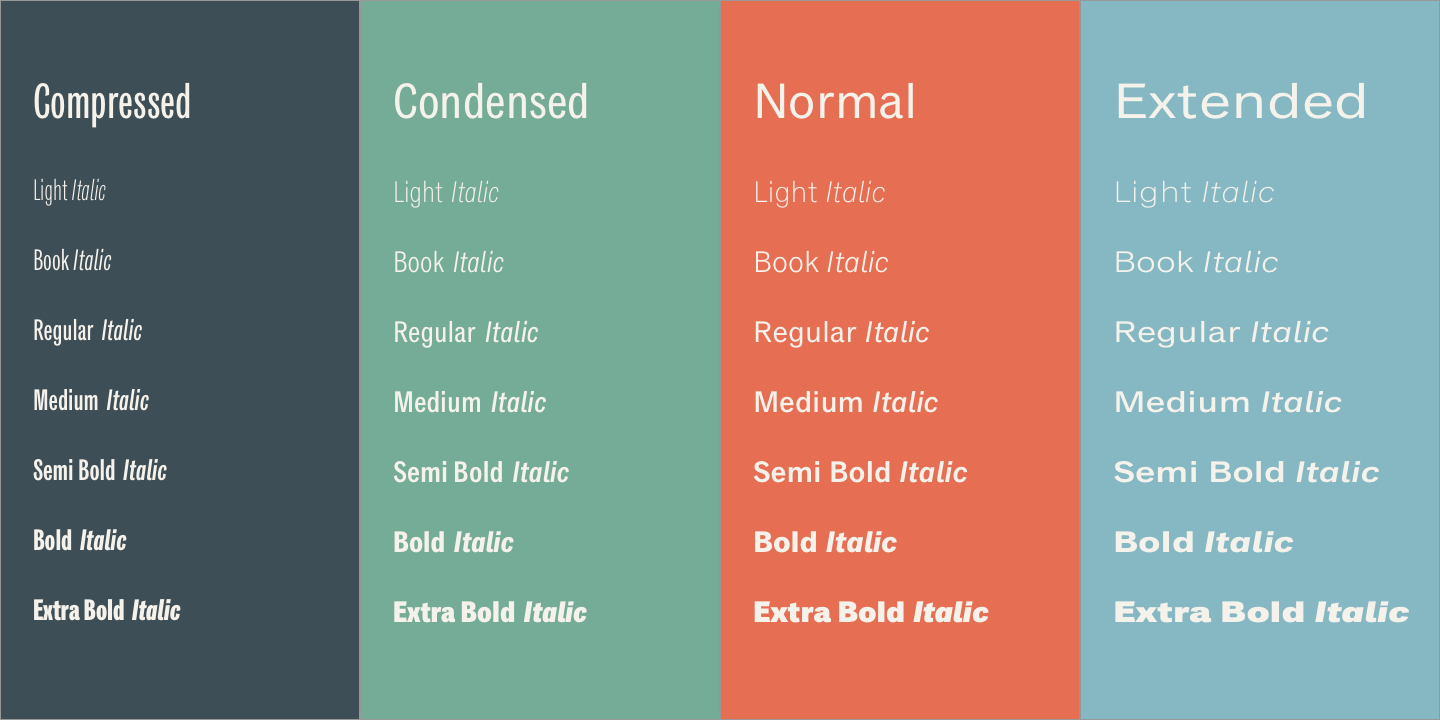
Classic Grotesque Font Free Download is a timeless sans-serif typeface known for its clean lines and modern simplicity. Its geometric structure and balanced spacing make it ideal for branding, editorial layouts, websites, and corporate materials.
With excellent legibility and a professional appearance, Classic Grotesque Font Free Download enhances your designs with clarity and style. It is versatile enough to be used in headlines, body text, and digital interfaces.
Elevate your projects with the sleek and reliable look of Classic Grotesque Font Free Download. If you want a font that combines modernity with elegance, Classic Grotesque is an excellent choice.